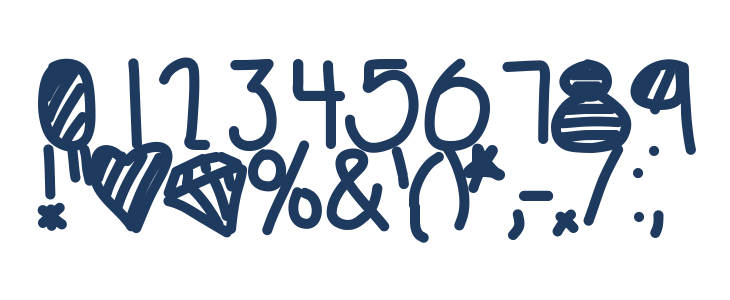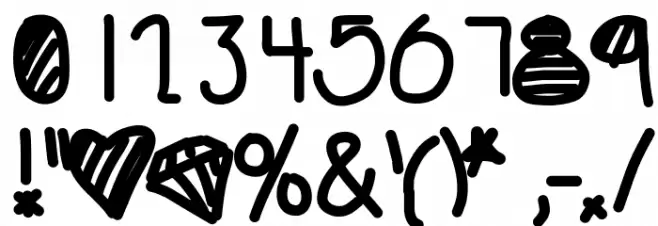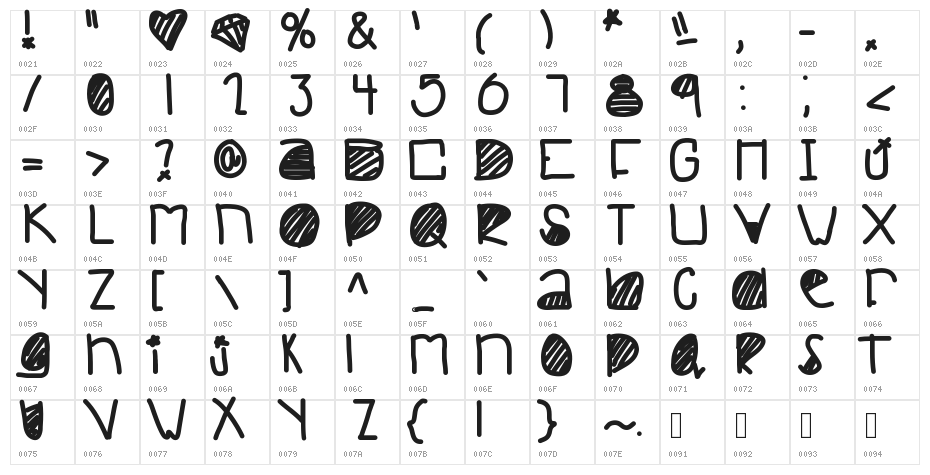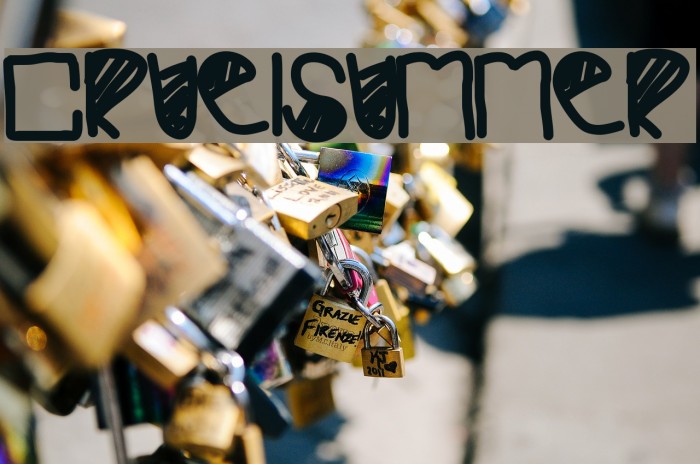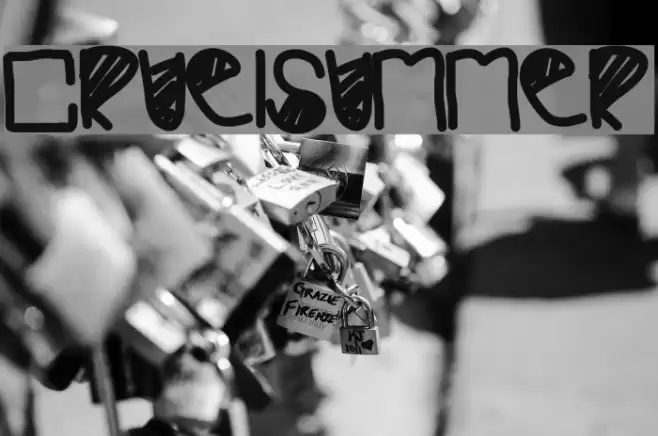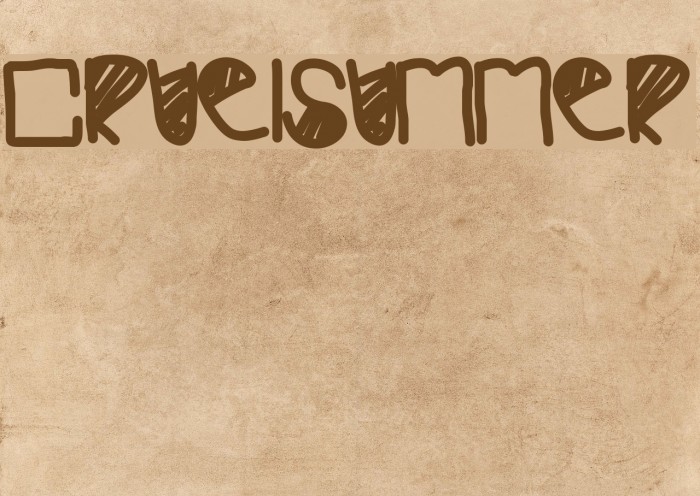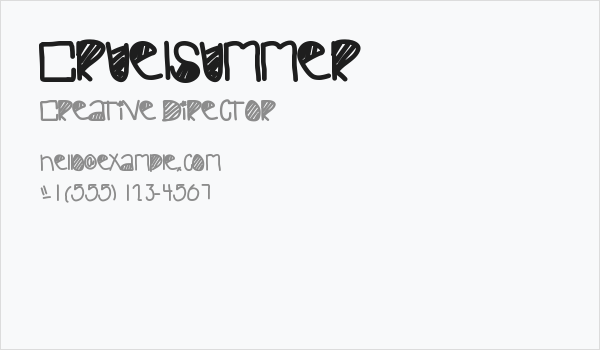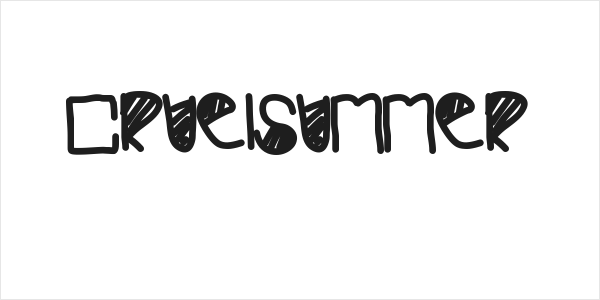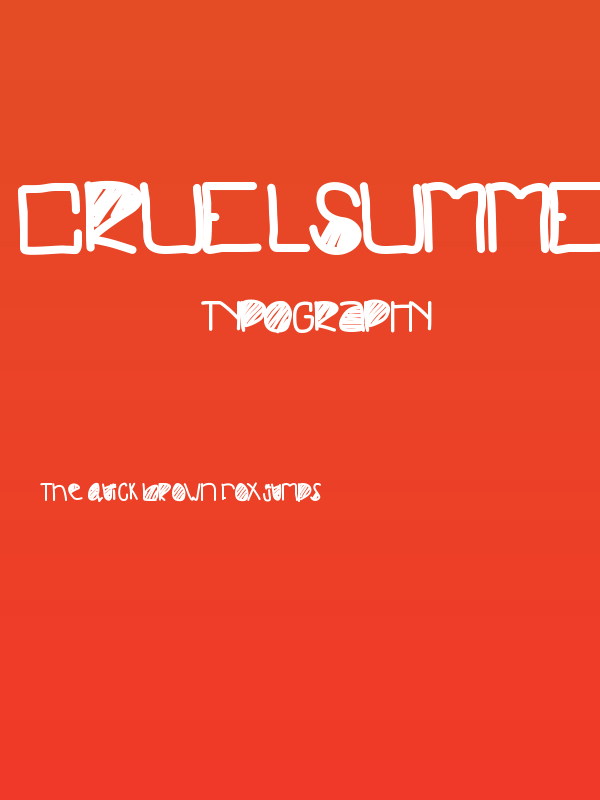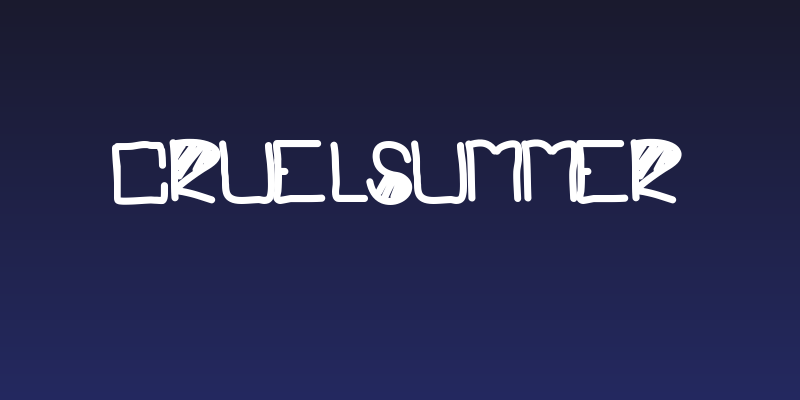
CruelSummer Font
CruelSummer Description
This playful and whimsical font features a hand-drawn style with a casual and artistic flair. The characters are bold and have a unique, uneven stroke that gives them a lively and dynamic appearance. Each letter is distinct, with some incorporating filled-in sections that add to the font's quirky charm. The numbers and special characters maintain this playful aesthetic, making the font suitable for creative and informal projects. Its overall style is reminiscent of doodles or sketches, providing a sense of spontaneity and fun.
| Proposed Projects | Ideal for children's books, playful branding, casual invitations, and creative posters. |